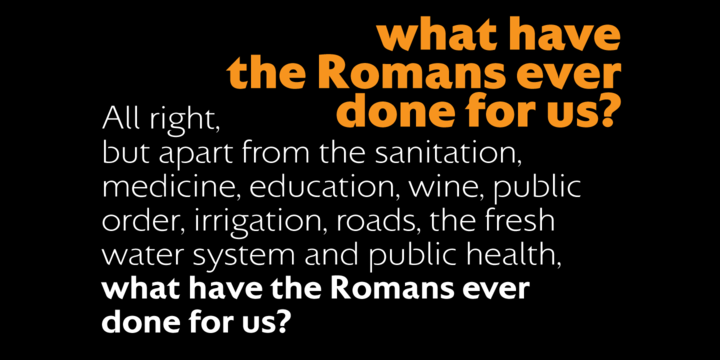
Colosseum Family Font
Behold the grandeur of Colosseum Family Font, a masterful creation by Alan Meeks that gracefully blends the timeless essence of Roman lettering with the modernity of the sans serif style. This remarkable font family is an ode to innovation, seamlessly fusing the rich heritage of classical typography with the sleek aesthetics of contemporary design.
With its strong personality and adaptability, the Colosseum Family Font lends itself effortlessly to a wide spectrum of applications, from captivating headlines that demand attention to the body text that engages readers in a meaningful dialogue. Whether you seek to craft elegant invitations or compelling marketing materials, this font family stands ready to elevate your creative expressions.
Immerse yourself in the beauty of Colosseum Family Font, a sans serif masterpiece that draws inspiration from the majestic Trajan Roman form. Its meticulously crafted characters exude a sense of authority and sophistication, adding a touch of grandeur to your digital creations.